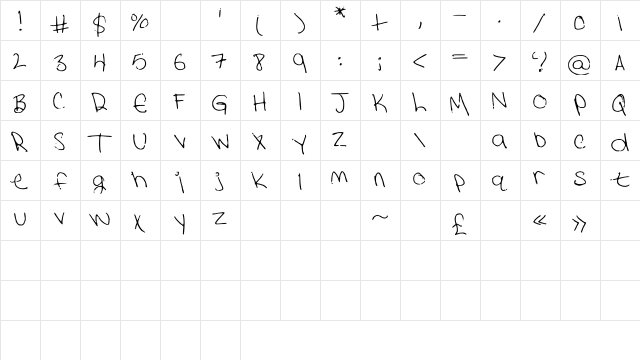
LexiFont4 Medium
Design Context for LexiFont4 Typeface
LexiFont4 is a composed and adaptable typeface that performs quietly and consistently across a wide range of design contexts.